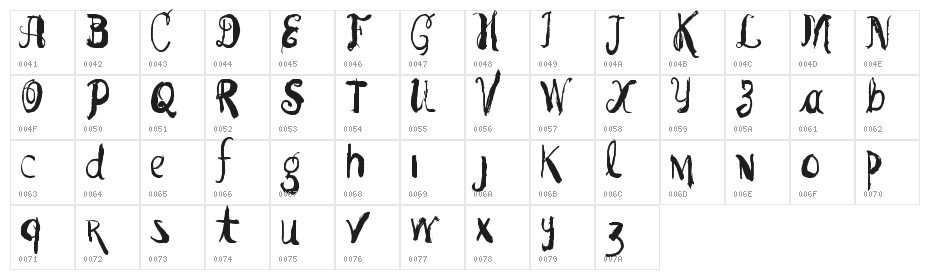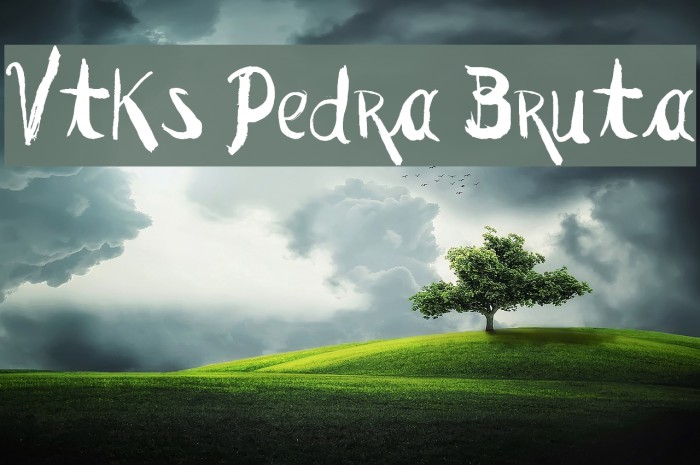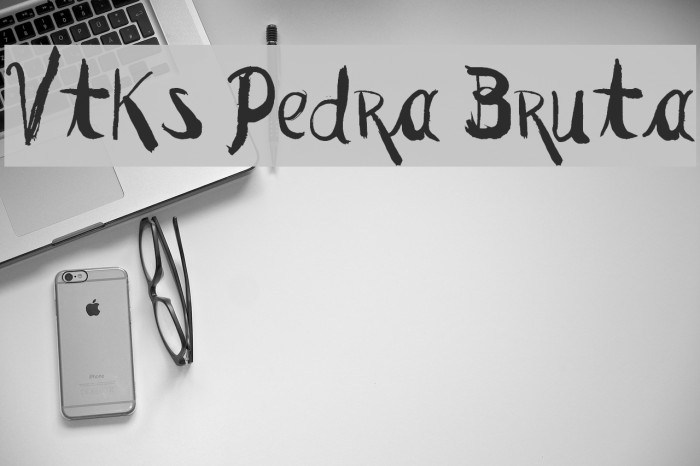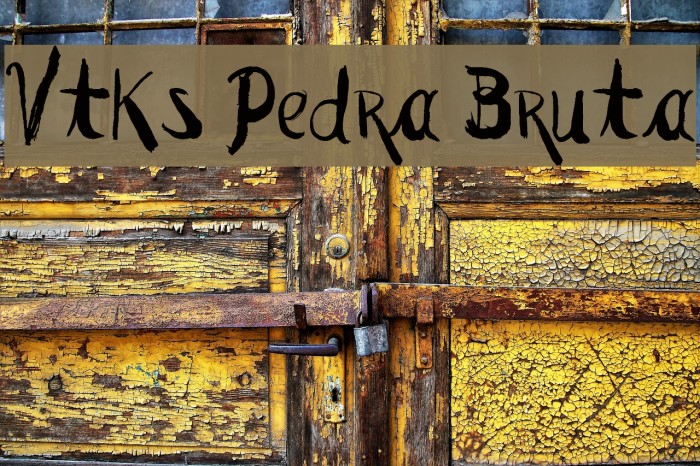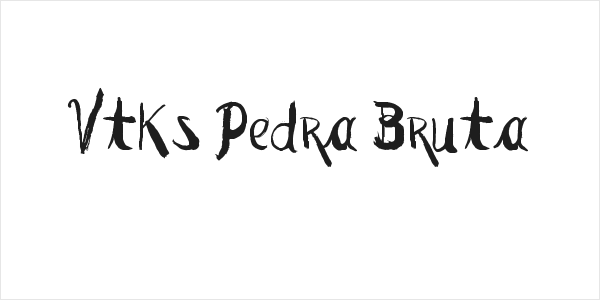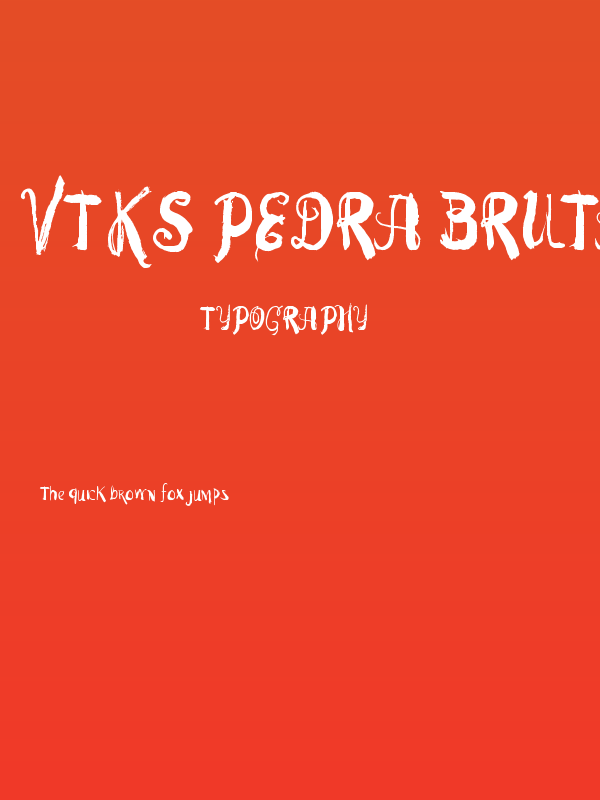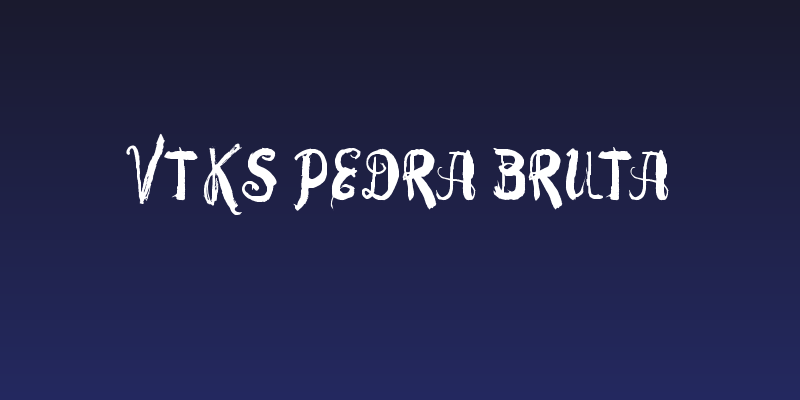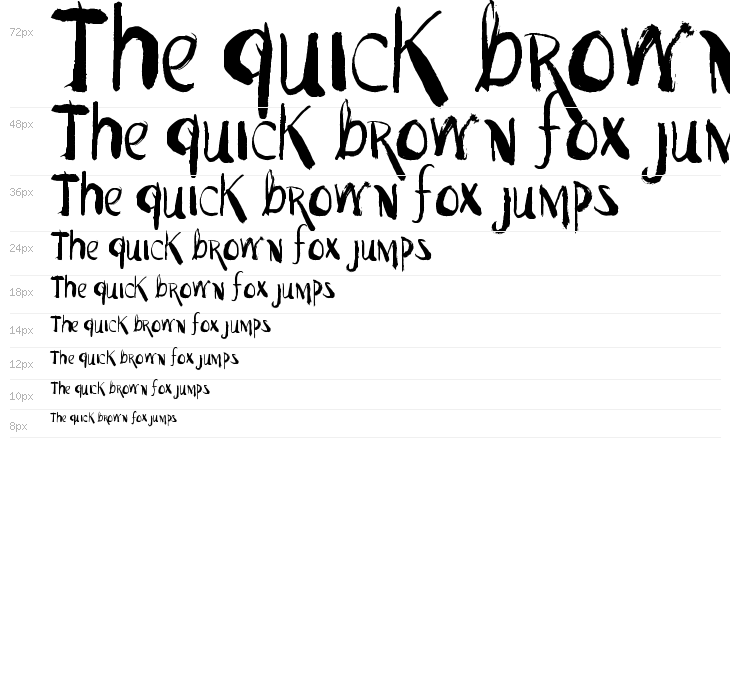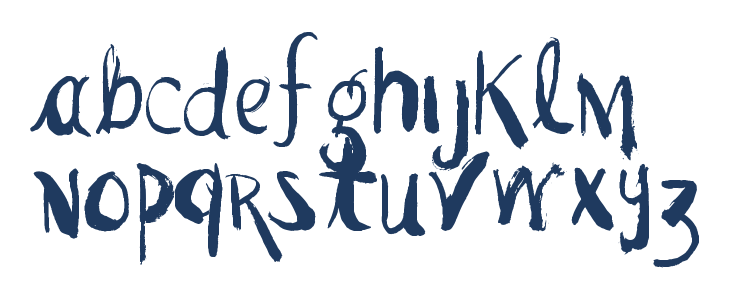
Vtks Pedra Bruta Font
Vtks Pedra Bruta Description
This font features a rugged, hand-drawn style with a distinctively rough and textured appearance. The characters are bold and expressive, with uneven strokes that give it a raw, artistic feel. The uppercase and lowercase letters maintain a consistent style, with exaggerated curves and sharp edges that add to its dramatic flair. The numbers and special characters follow the same design principles, ensuring a cohesive look across all elements. This font's unique style makes it stand out, perfect for projects that require a bold and unconventional typeface.
| Proposed Projects | Ideal for posters, album covers, branding projects, and any design requiring a bold, artistic touch. |